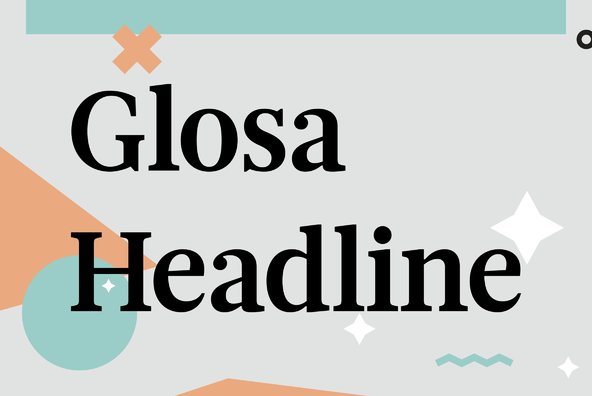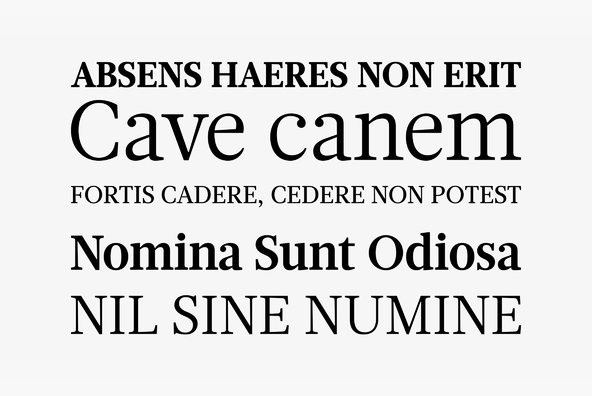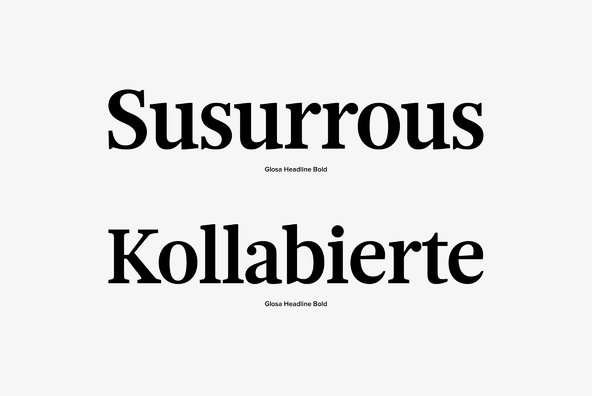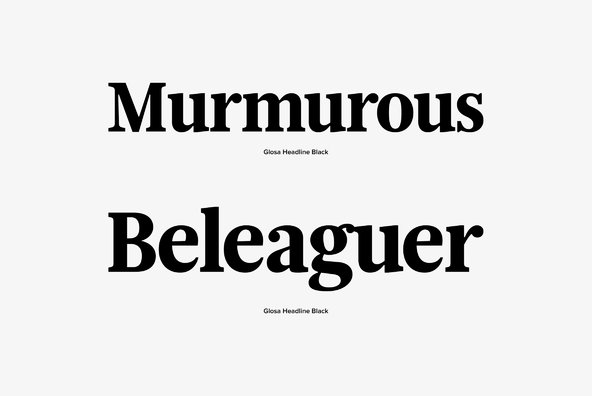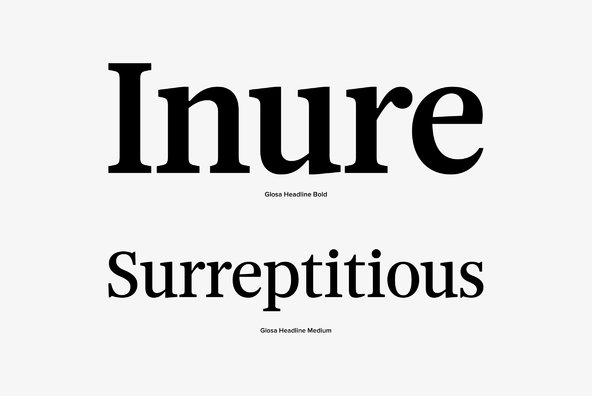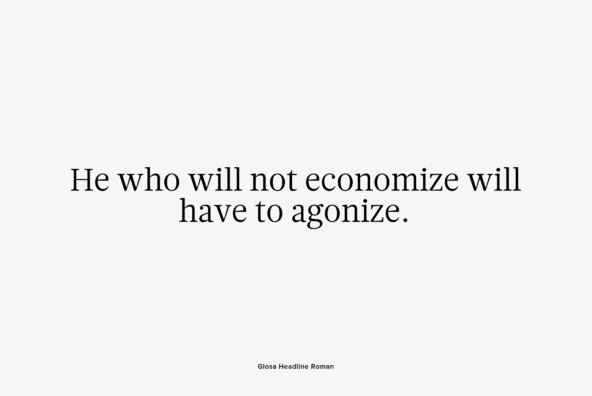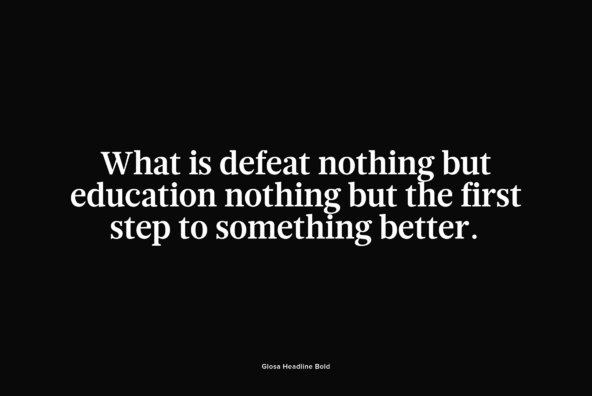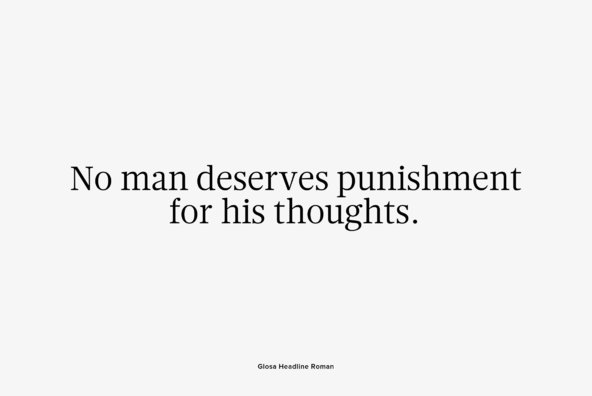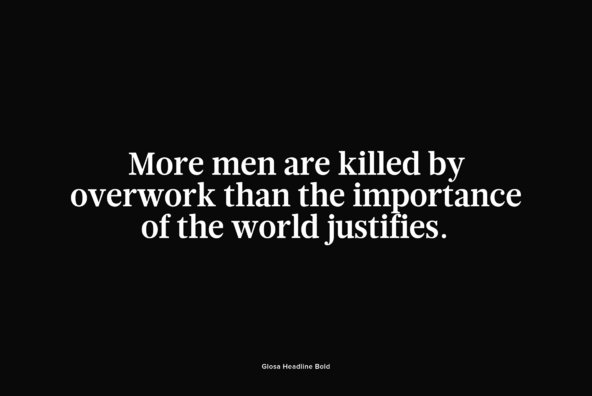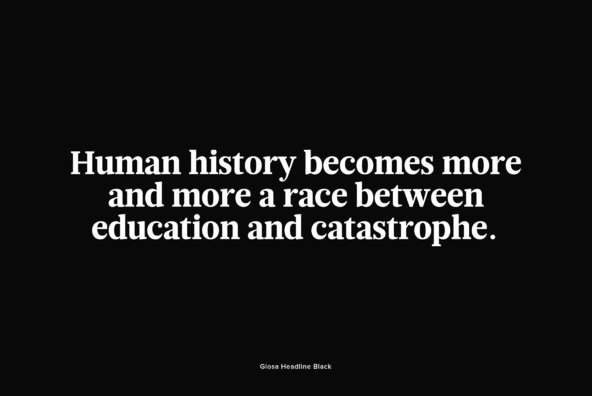
Glosa is a type family designed for editorial purposes. Glosa is delicate and highly readable at very small sizes but reveals all it’s strength and personality when used at big sizes.
Glosa is a type family designed for editorial purposes.
Glosa is delicate and highly readable at very small sizes but reveals all it’s strength and personality when used at big sizes. The contrast of the sharped serifs and ball terminals, provide a fresh and very contemporary look.
Glosa Text is a bracketed serif, softer, smooth and less idiosyncratic, suitable for text settings. Both styles have four weights and italics, in a workhorse typeface, full of OpenType features such as Small Caps, Tabular Figures, Central Europe characters and Historical Figures, among others.
Glosa Headline is ideally suited for nameplates and headline typography, with four weights and with lowercase matching the small caps.In Glosa most of the diacritics were designed to fit the gap between the x-height and the caps height, avoiding some common problems with the accented characters.